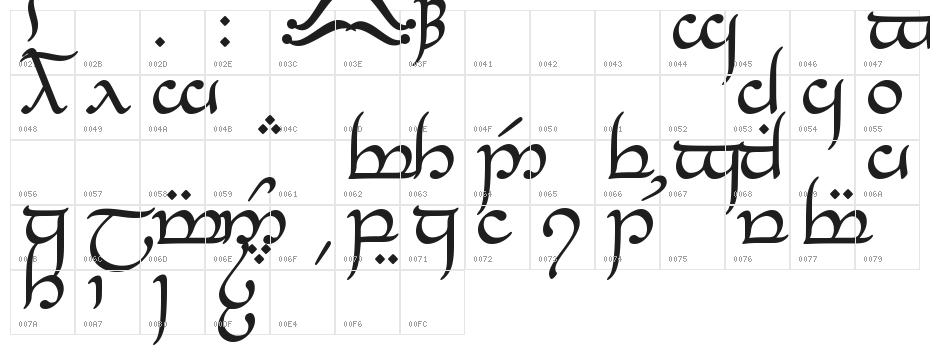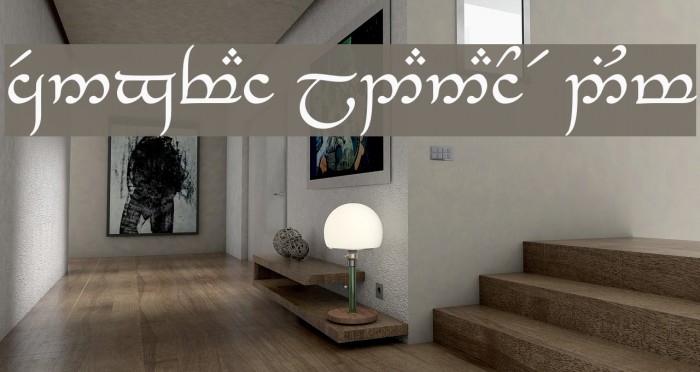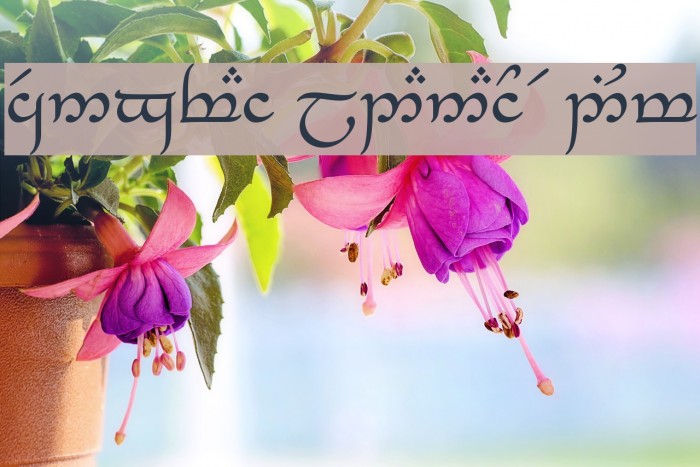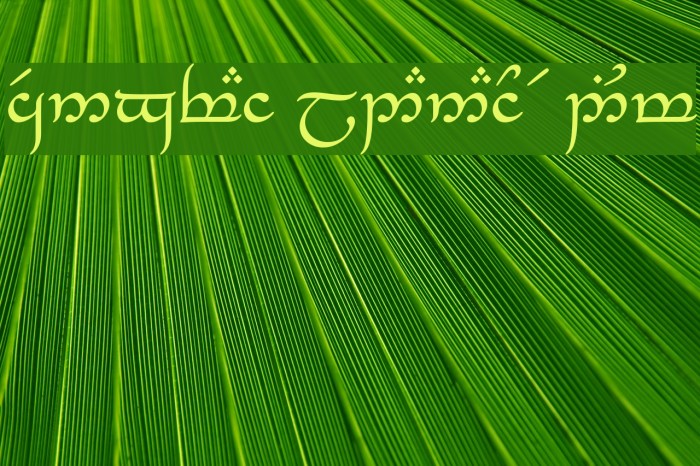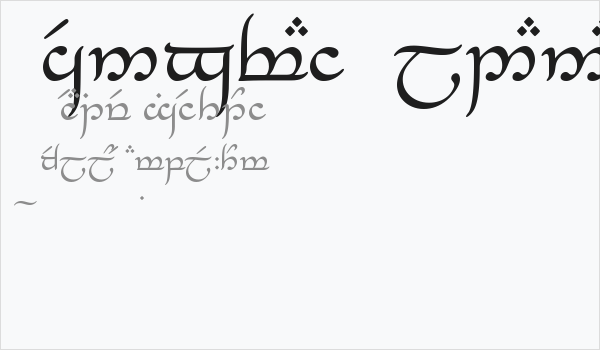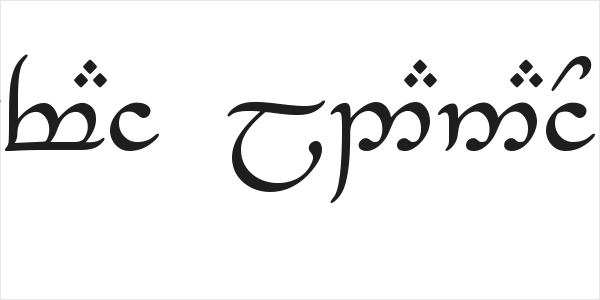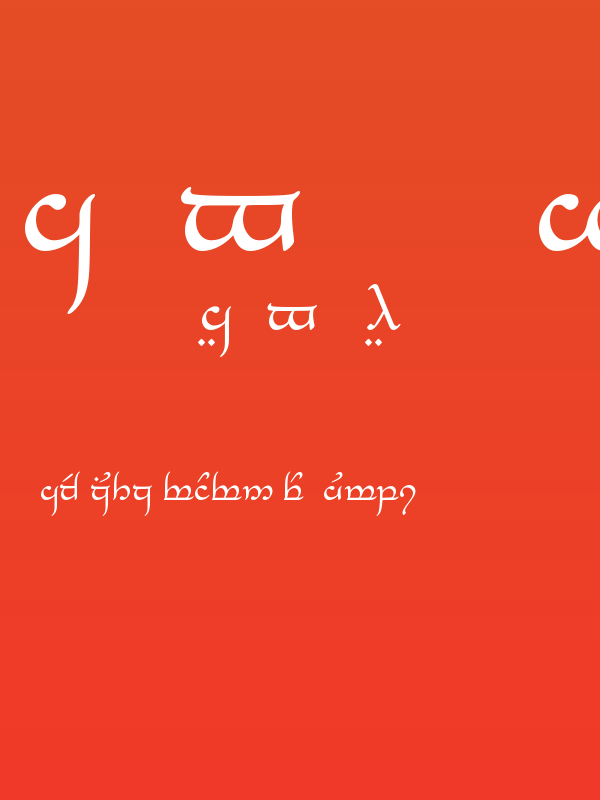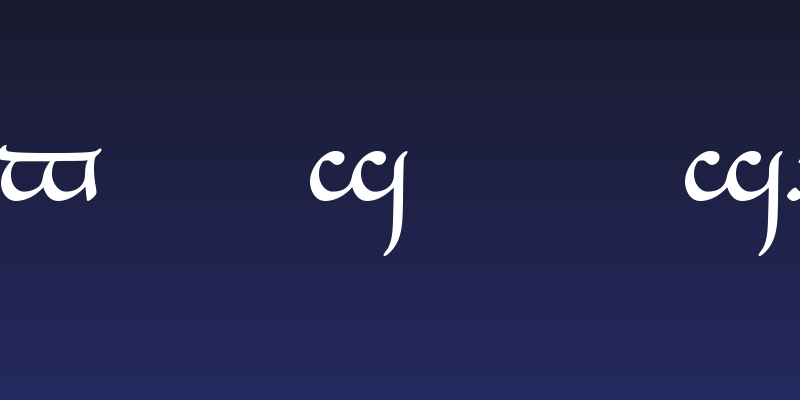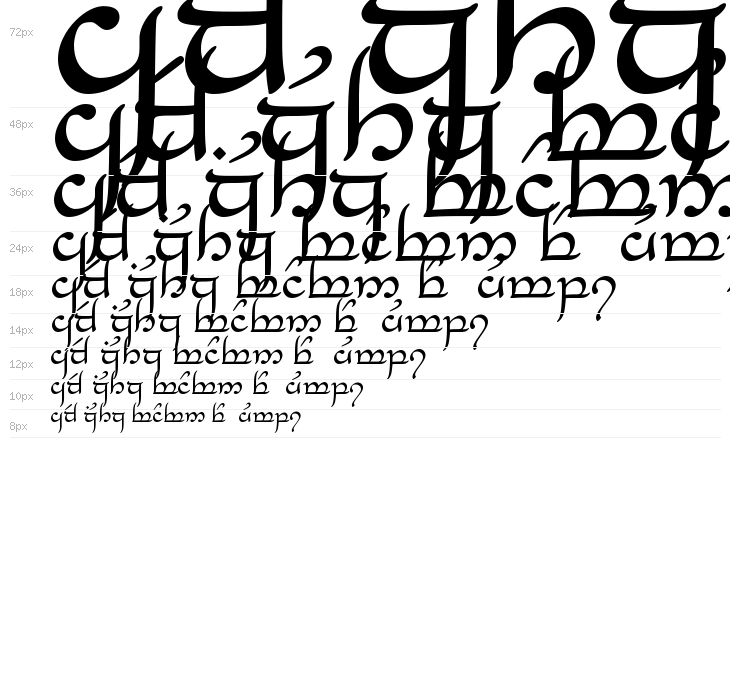
Tengwar_Eldanaro Medium Font
Tengwar_Eldanaro Medium Description
This font embodies an elegant and intricate script style, reminiscent of ancient calligraphy. The characters are highly stylized with flowing curves and elongated lines, giving it a mystical and artistic appearance. The design features a unique combination of sharp angles and smooth curves, creating a harmonious balance. The font's ornamental nature makes it ideal for decorative purposes, capturing a sense of fantasy and otherworldliness. Its detailed and ornate structure suggests a historical or mythical context, perfect for projects that aim to evoke a sense of wonder and tradition.
| Use Case | Logos, Titles, Decorative text |
| Proposed Projects | Ideal for fantasy-themed projects, book covers, posters, and decorative invitations. |